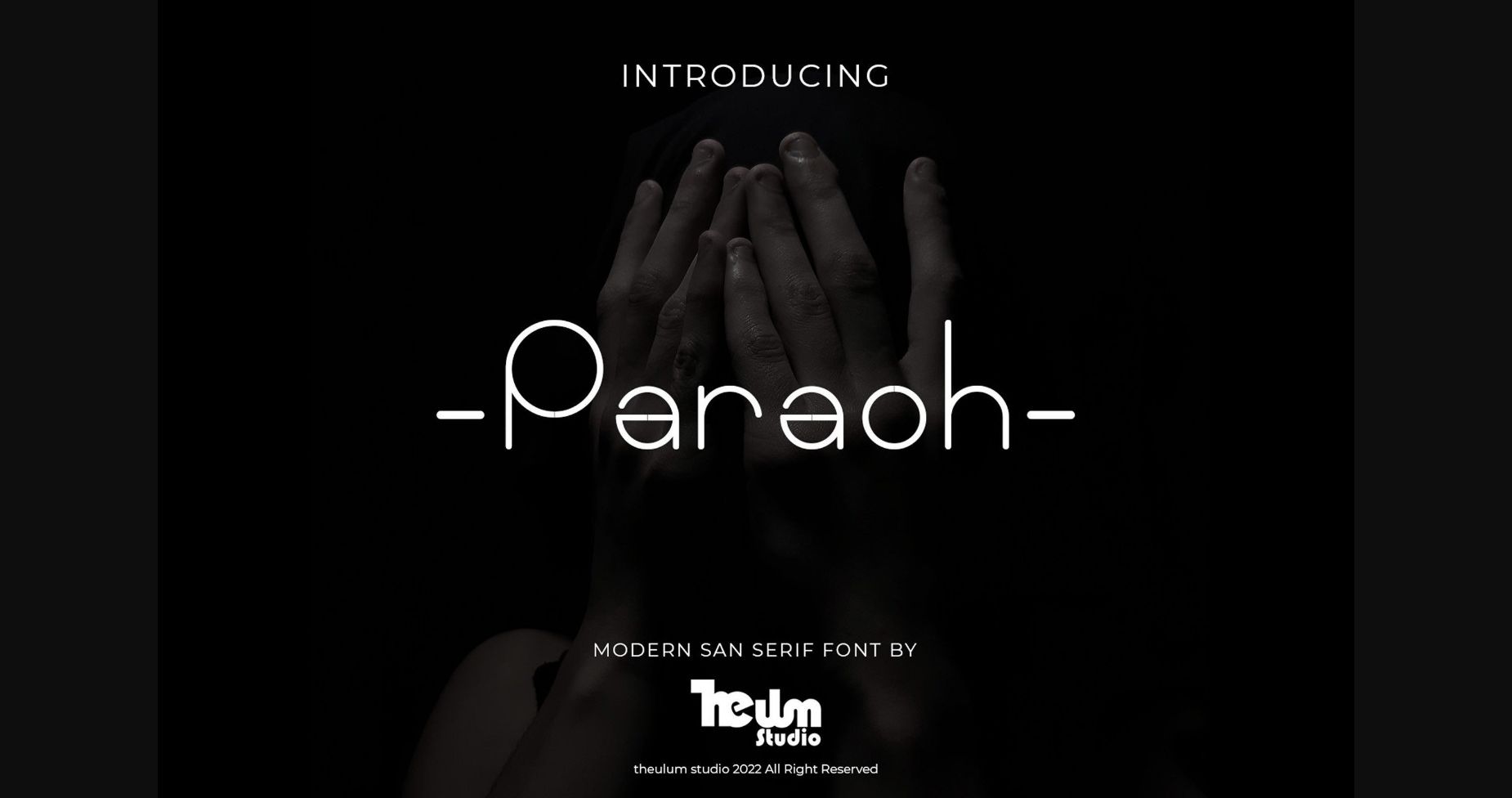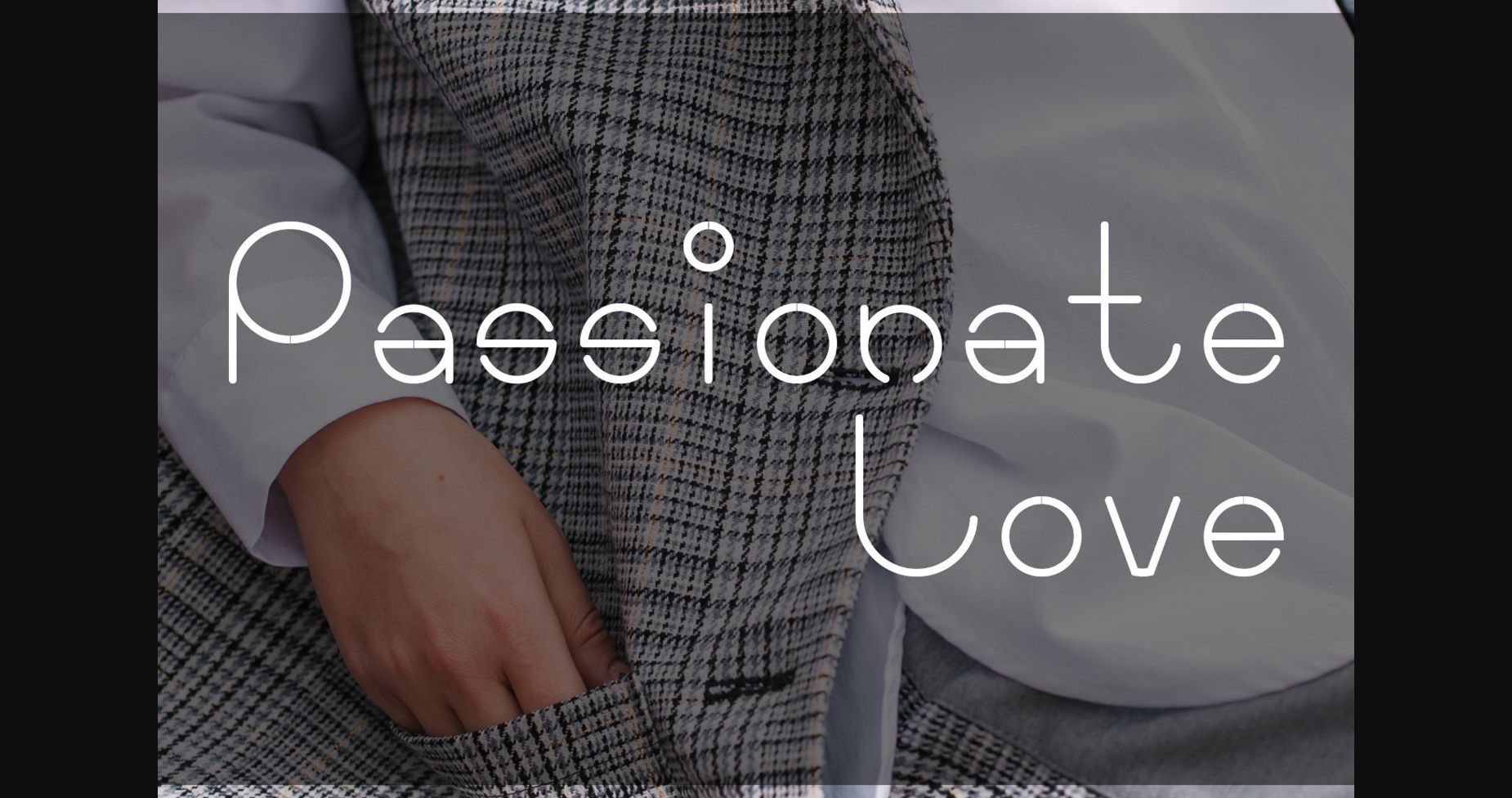
About Paraoh Font
Paraoh is a modern sans serif font inspired by the traditional language of Indonesia. It is perfect for photography, watermarks, social media posts, advertisements, logos, branding, invitations, product designs, labels, stationery, wedding designs, product packaging, special events, and many more. Use it with confidence, and will make your projects fabulous.